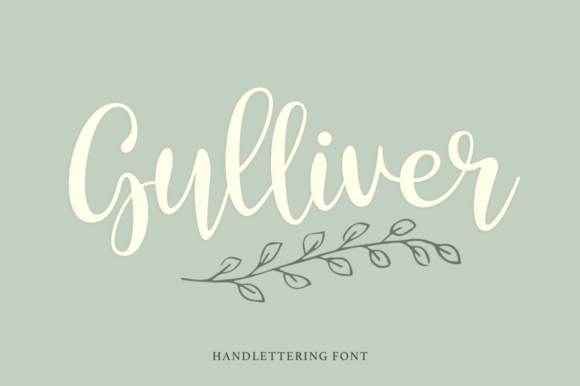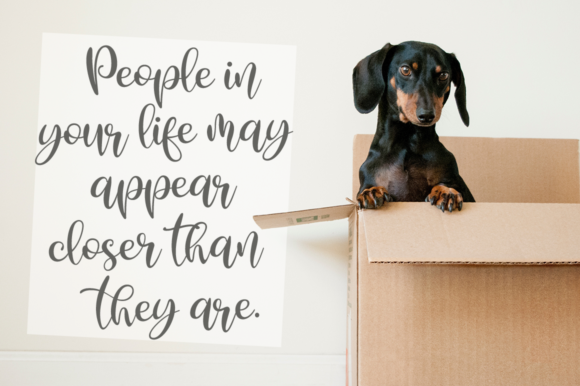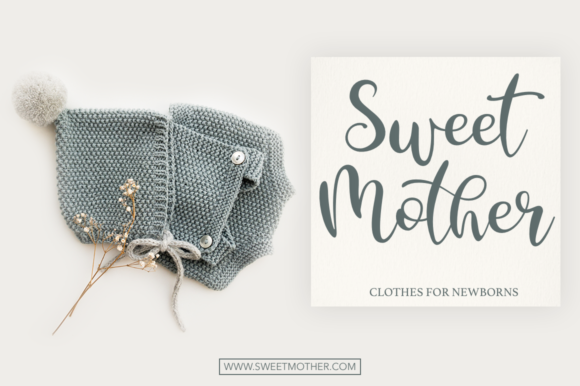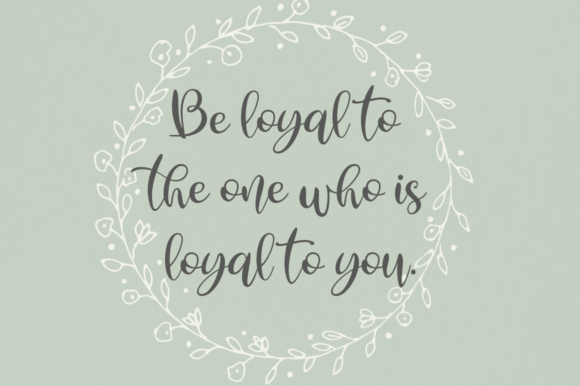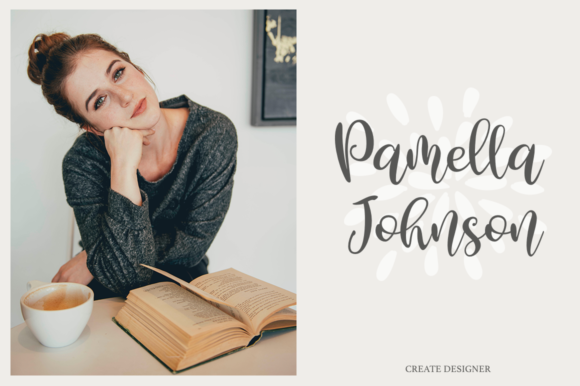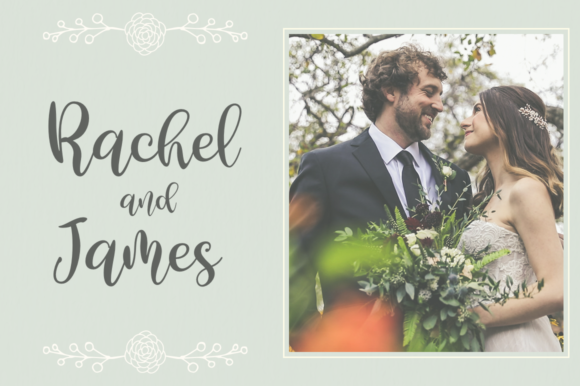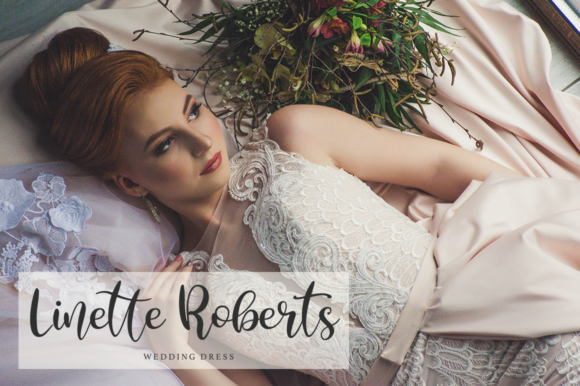
HomeScript FontsGulliver Font Script Fonts Gulliver Font FacebookXPinterestWhatsApp Gulliver Font Poster 2 Gulliver Font Poster 3 Gulliver Font Poster 4 Gulliver Font Poster 5 Gulliver Font Poster 6 Gulliver Font Poster 7 About Gulliver Font Gulliver is a new, fresh, handmade, script font. It’s ideal for branding and decorating any project. DOWNLOAD ON CREATIVE FABRICAThis font is sold and delivered by Creative Fabrica. Font Canyon may earn a commission if you buy through this link. People also explored Korengan Font Devita Font Galista Font Thinker Justice Font Vigetha Font Male Kelly Bella Canvas 3001 Tee Mockup Andecha Font Roughcast Night Blazer Font 318 0 TagsGulliver Font Previous articleAwelina Script FontNext articleGerlivtey Font LEAVE A REPLY Cancel reply Comment: Please enter your comment! Name:* Please enter your name here Email:* You have entered an incorrect email address! Please enter your email address here Website: Save my name, email, and website in this browser for the next time I comment. Personal Use Free Hillgates Personal Use Free Read more about this font 08 Underground Personal Use Free Read more about this font Morning Miow Personal Use Free Read more about this font Happy Garden Personal Use Free Read more about this font BLOG Transform Your Website: Elevate Your Typography with 7 Best Web Font Generators Are you ready to transform your website's typography from ordinary to extraordinary? Great! Today, we're diving into the world of web font generators, which... To increase your work productivity, choose the most readable fonts. How to Install and Use Fonts on Windows, macOS, and Web Projects Modern Sans-Serif Fonts That Brands Love in 2025